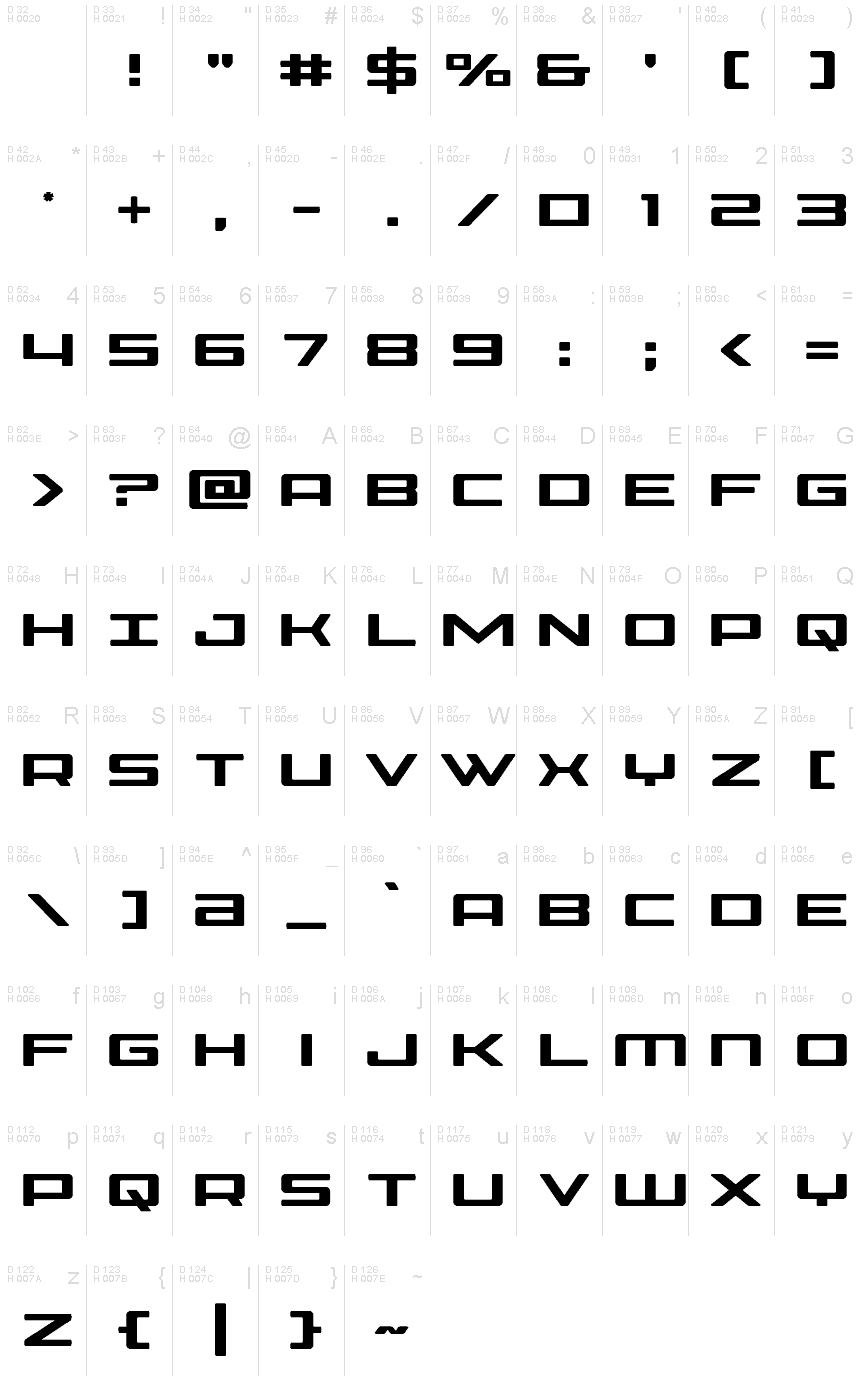
Phoenicia Title
Phoenicia is a captivating display font that exudes a striking techno aesthetic. Designed by Daniel Zadorozny, this expanded font boasts a bold, angular letterforms that command attention. The unique character shapes and clean, geometric lines give Phoenicia a distinctly contemporary feel, making it an excellent choice for a variety of design applications, from modern branding and packaging to dynamic digital interfaces. With its strong visual impact and versatility, Phoenicia is a font that can elevate any project with its sleek, cutting-edge style.
This font would be particularly well-suited for projects that require a sense of technological sophistication or an industrial-inspired aesthetic. Its expanded width contributes to a bold, impactful presence, making it a great fit for headlines, logos, and other display-oriented design elements.